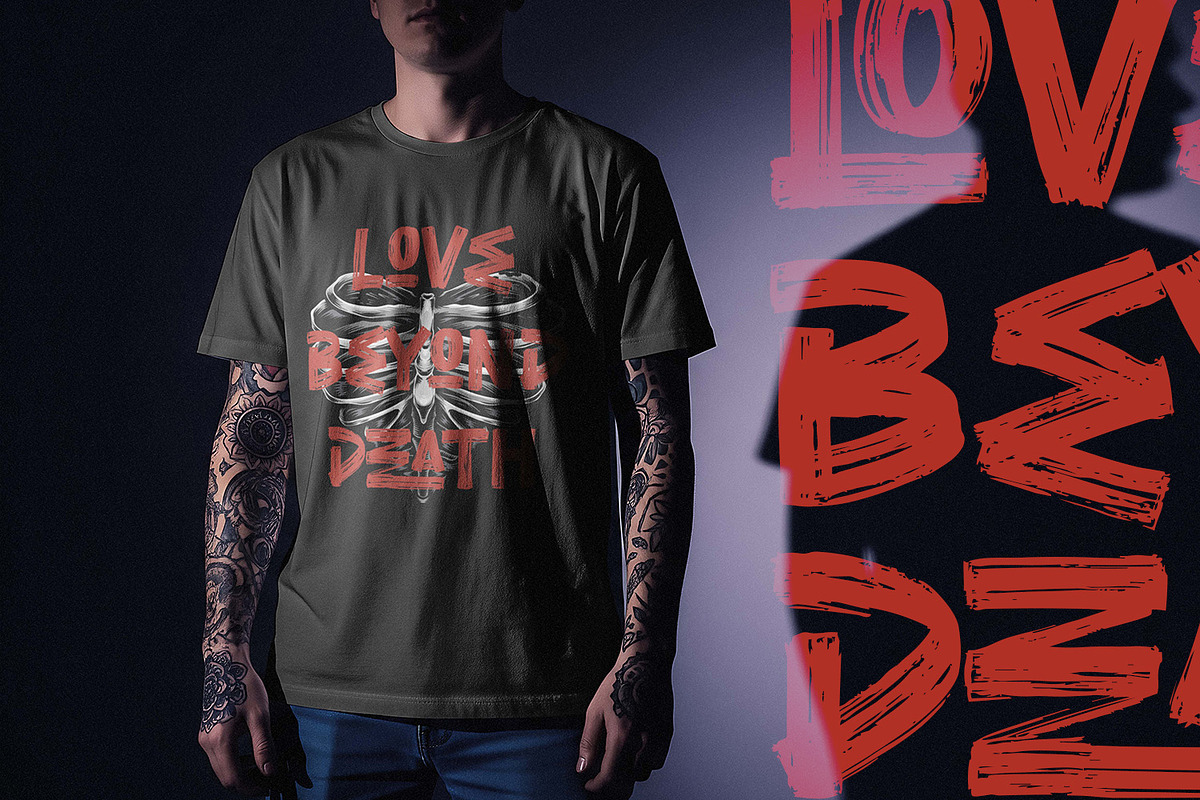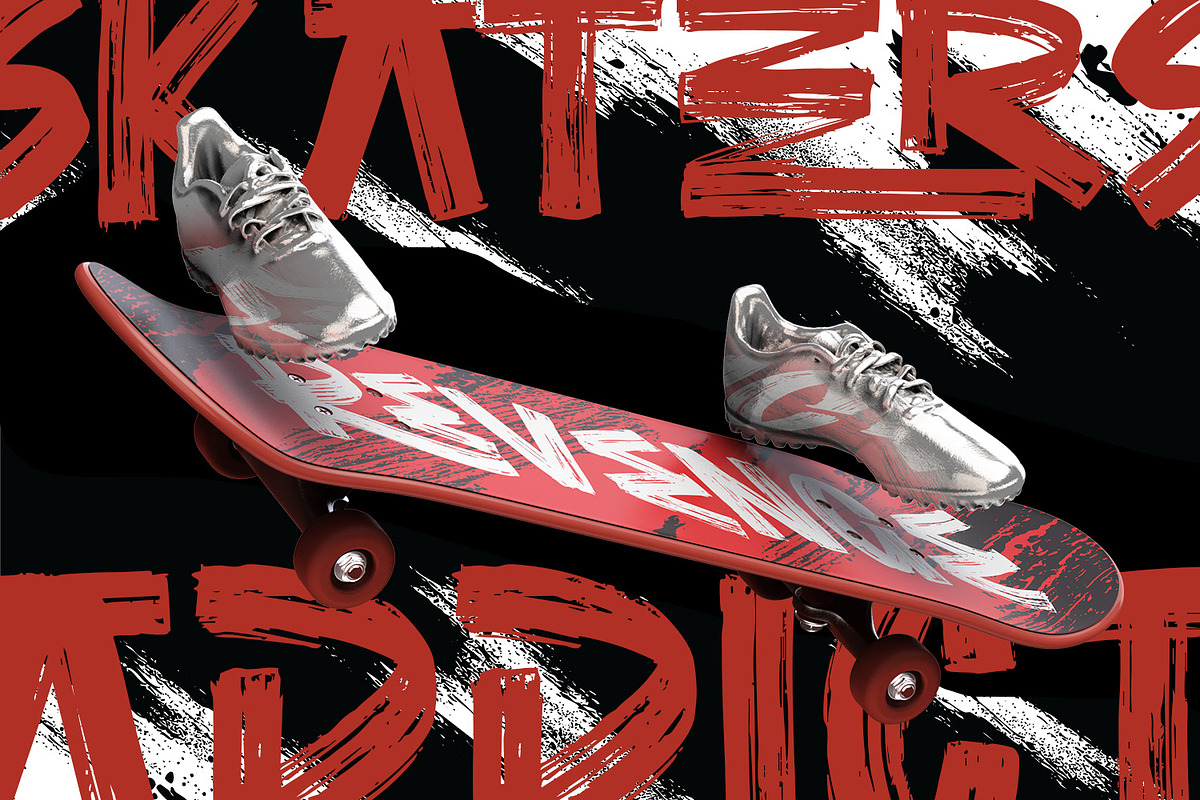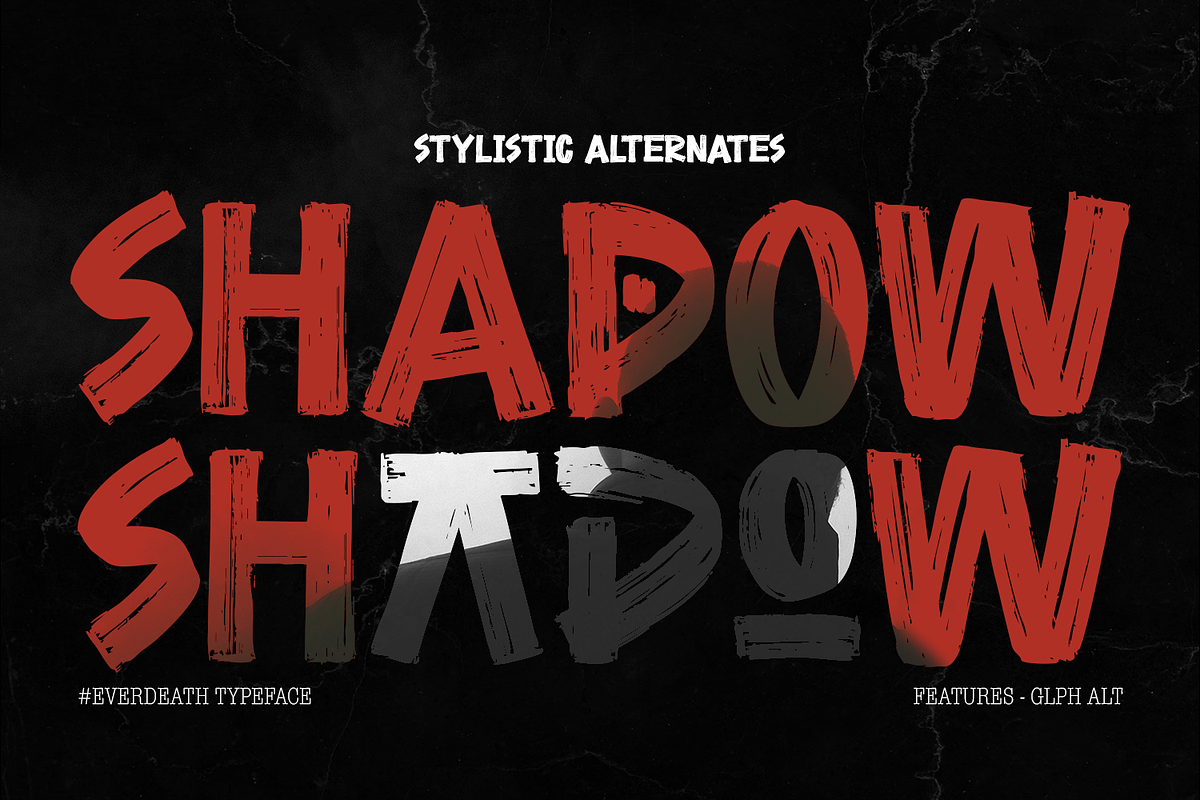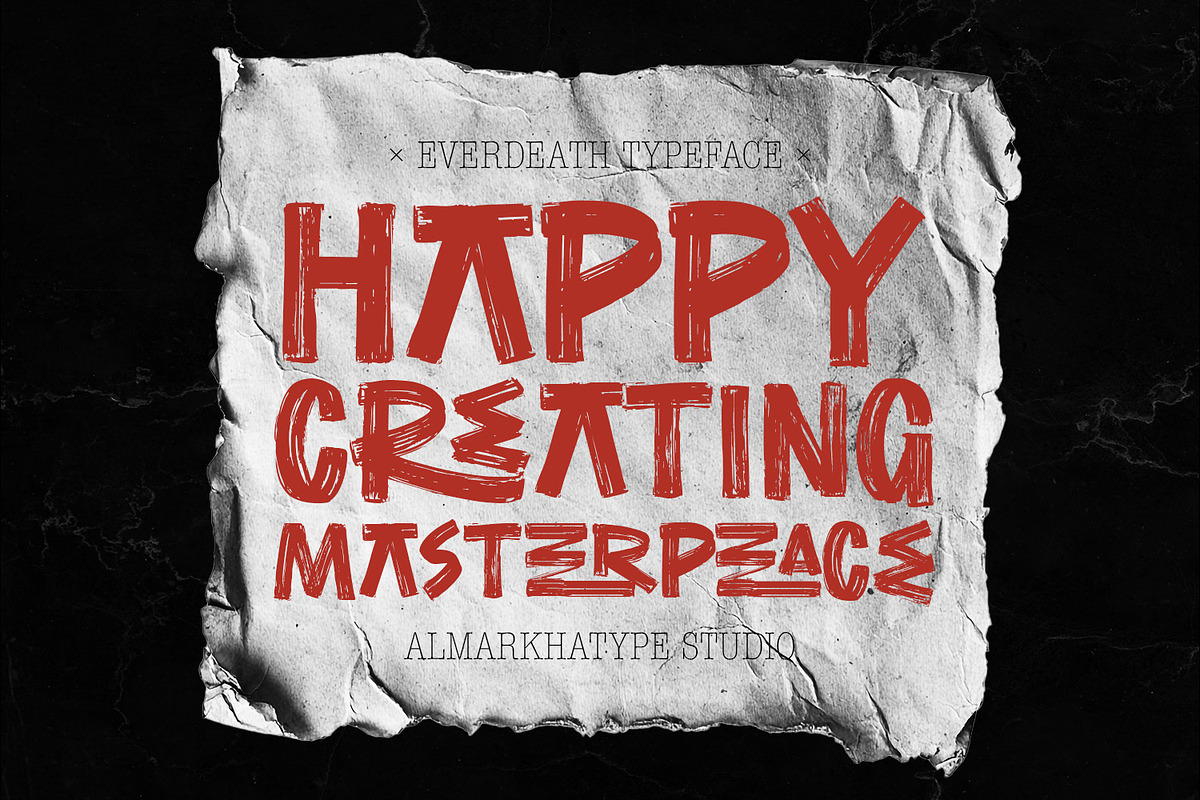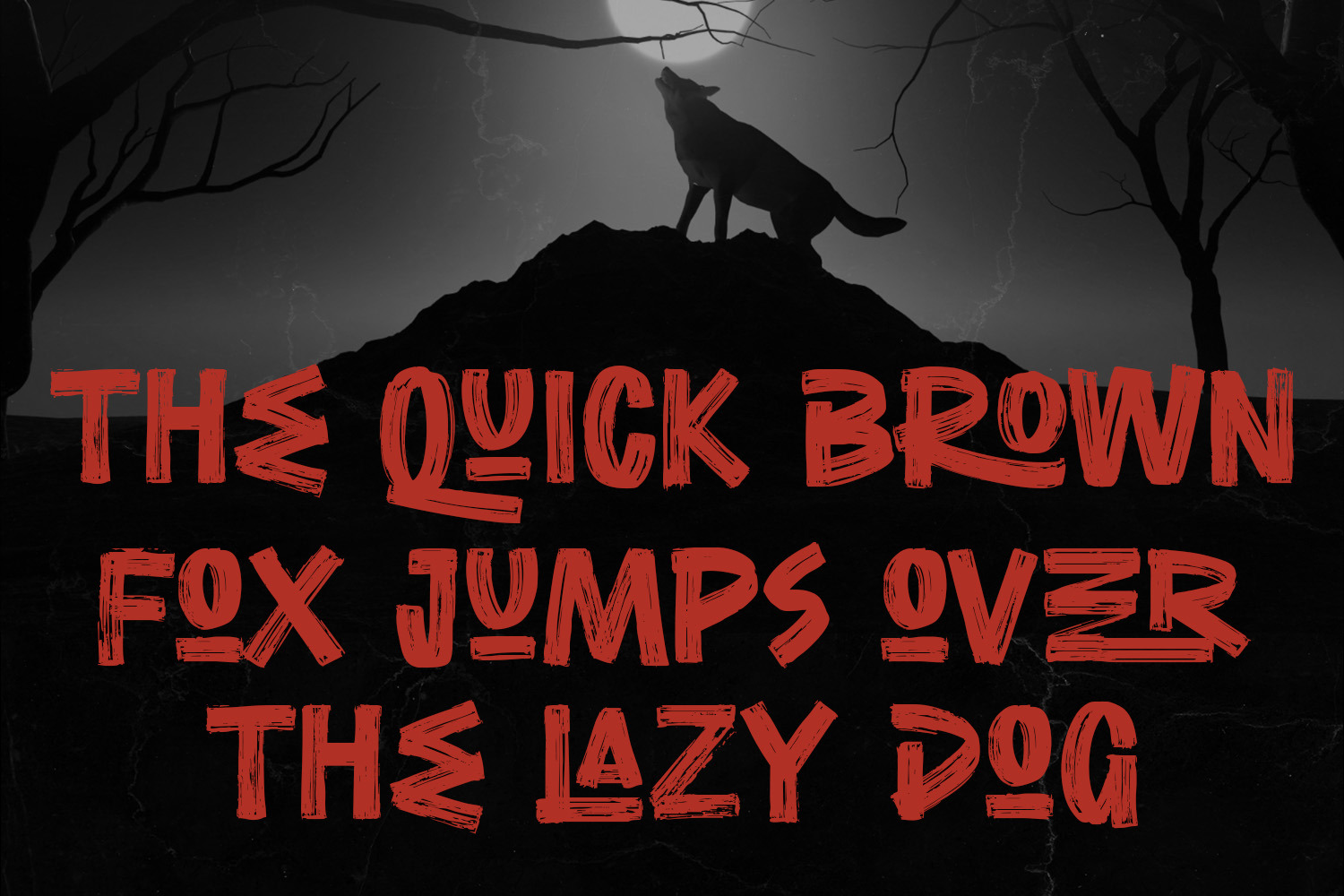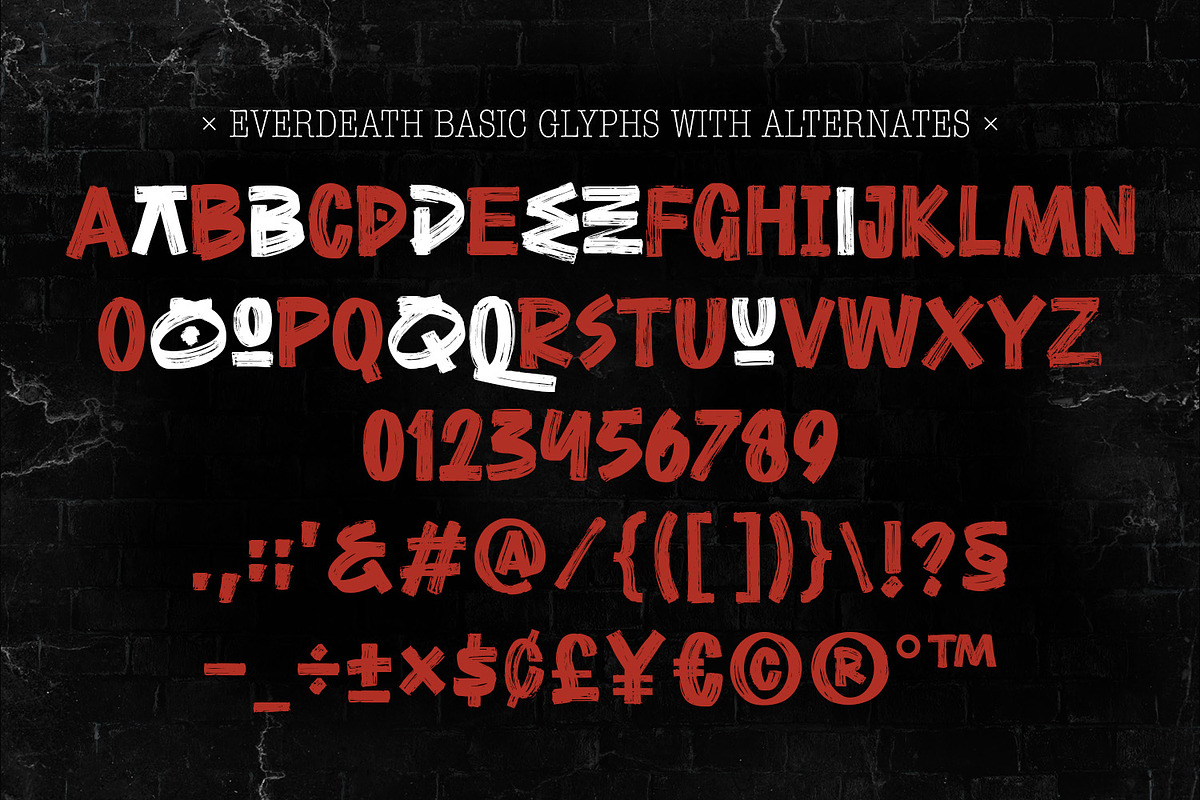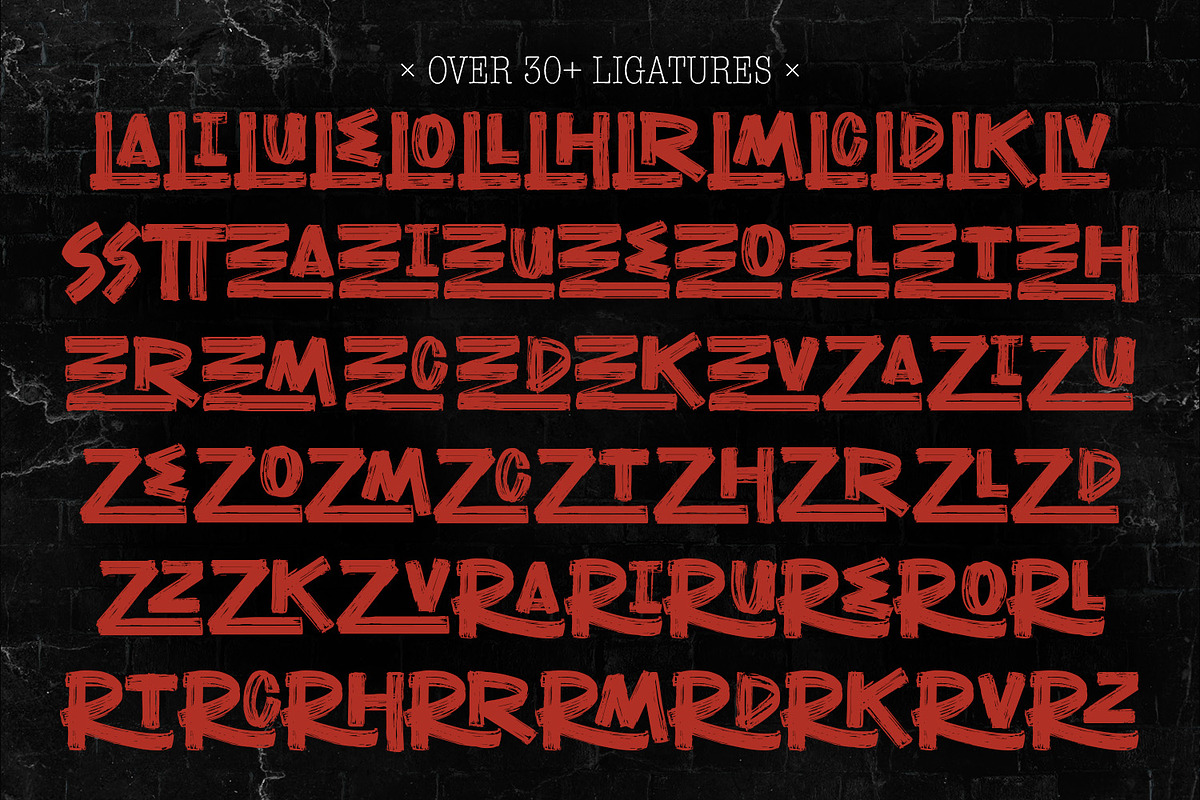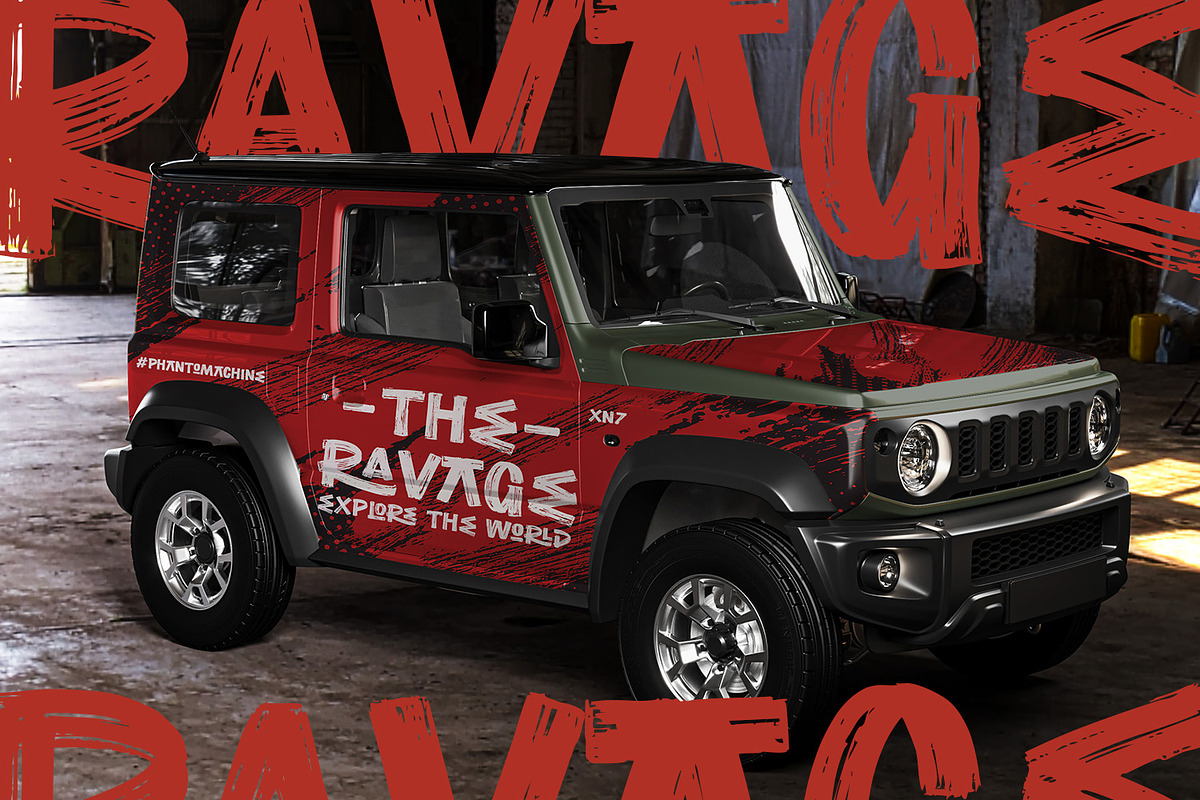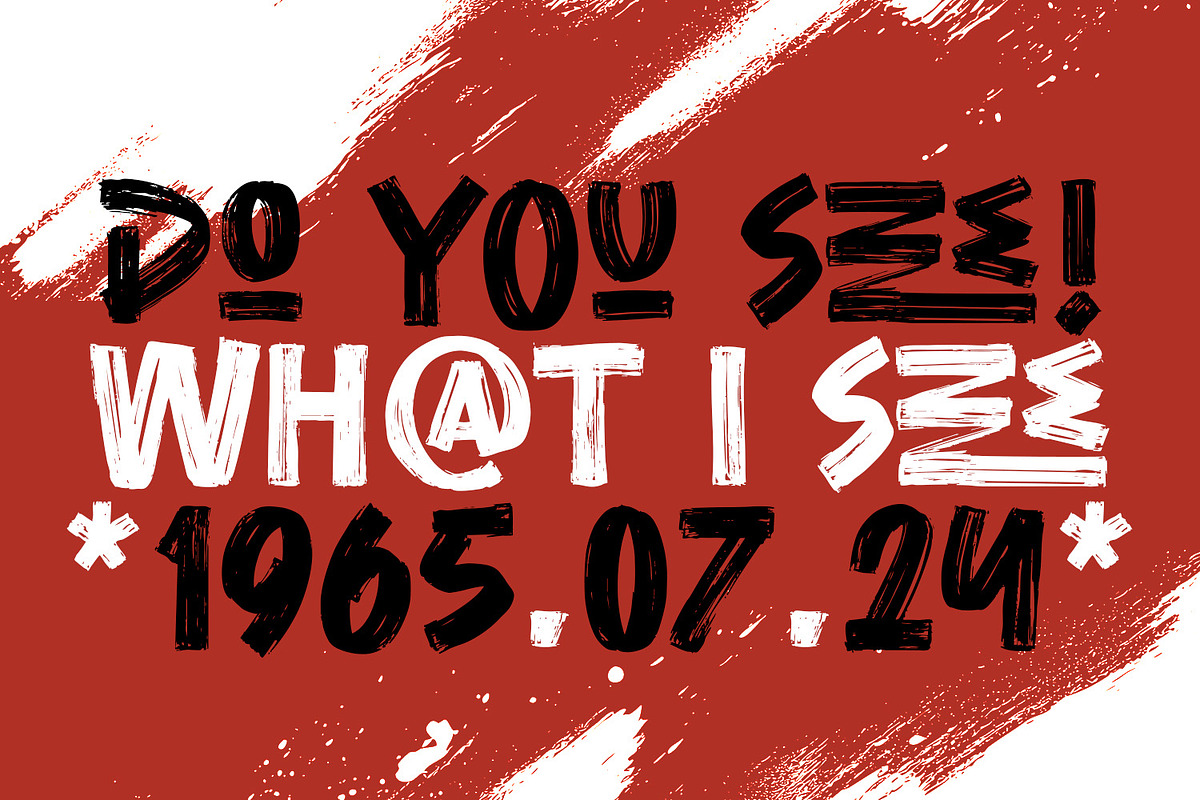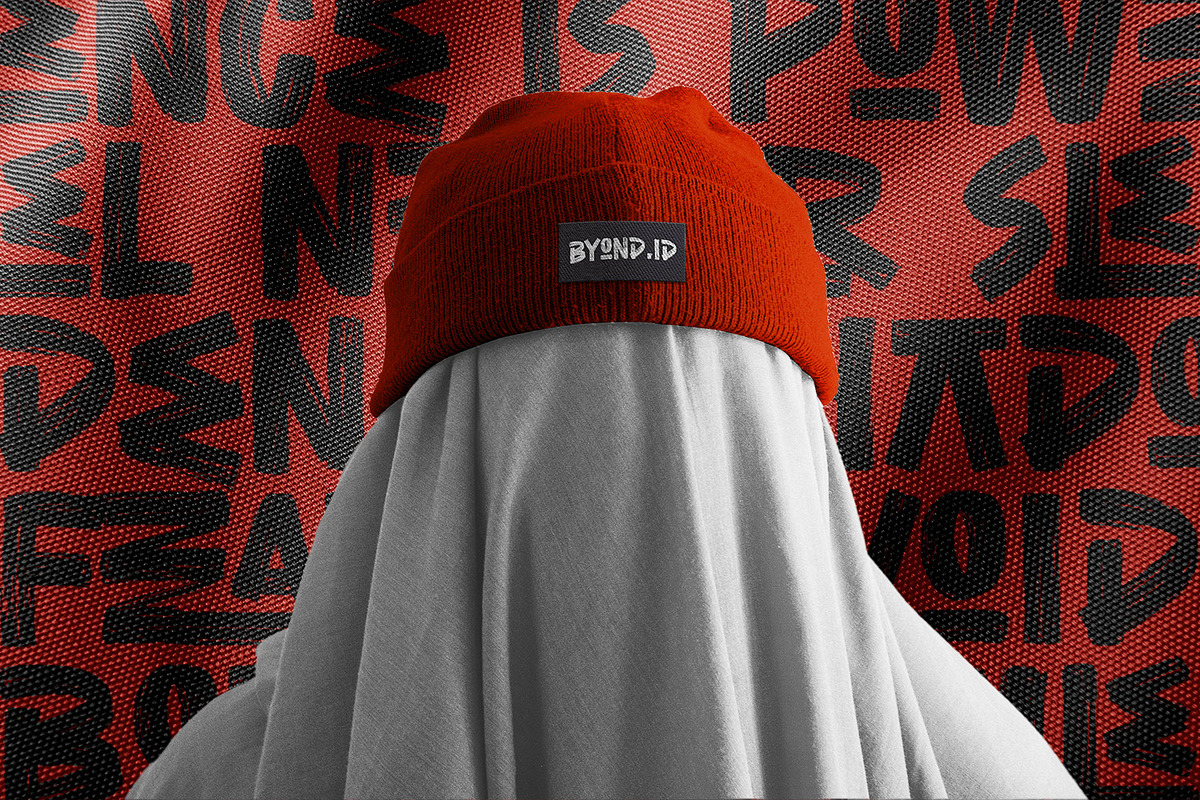
Everdeath – Handbrush Typeface
Everdeath is a bold and expressive handbrush typeface designed to deliver a raw, energetic, and rebellious look to your creative projects. Inspired by urban street art, rough brush strokes, and underground design culture, this font captures the imperfect beauty of hand-painted lettering while maintaining strong readability and visual impact.